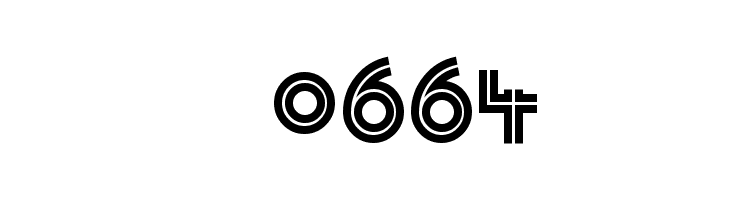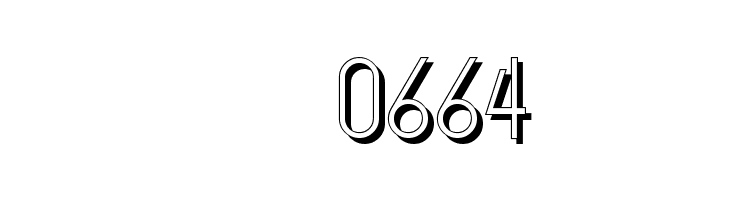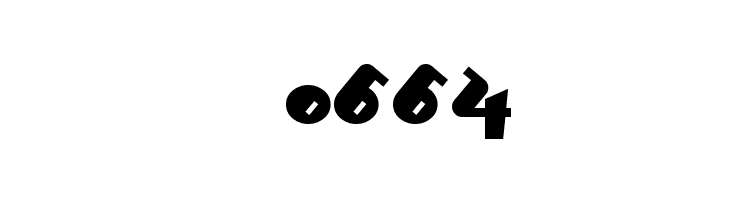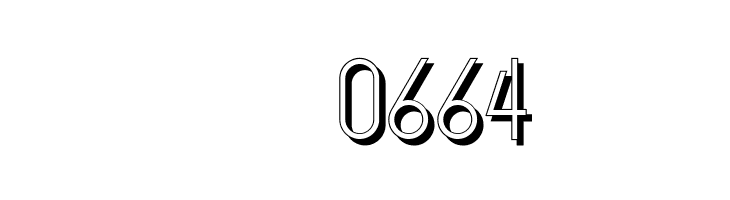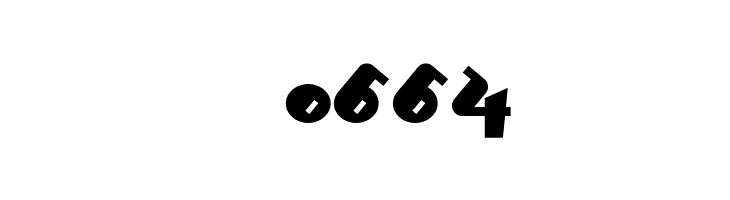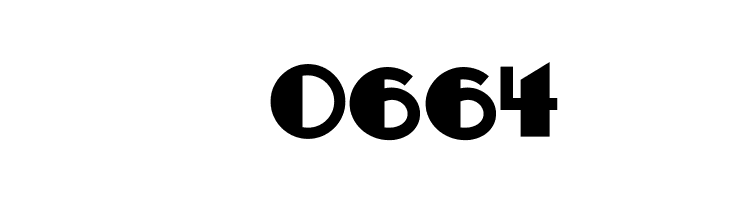
An ornate and decorative font with intricate patterns, perfect for vintage-themed designs.
A decorative and eclectic font with intricate patterns and vintage flair.
A modern serif font with artistic flair and balanced elegance.
A playful, snow-themed decorative font with bold, chunky characters.
A flowing, cursive font with elegant loops and a handwritten style.
A flowing, cursive script font with elegant, connected letters and dynamic contrast.
A graceful and elegant script font with flowing, cursive letterforms.
A bold, geometric font with playful, rounded characters and high contrast.
A bold, geometric font with playful and dynamic character shapes.
A bold, distressed font with a vintage, rugged appearance.
An elegant and flowing script font with smooth, cursive letterforms.
Cartoonish, money-themed decorative font with detailed illustrations.
A graceful and elegant script font with fluid, sweeping curves.
A modern, geometric font with a clean and condensed design.
A bold, decorative font with a shadow effect for a three-dimensional look.
A modern, geometric font with tall, narrow characters and uniform stroke width.
A bold, geometric font with a distinctive shadow effect, perfect for modern and creative designs.
A bold, geometric font with Art Deco influences and high contrast.
A bold, angular font with a playful and whimsical style.
A bold, geometric font with playful and artistic elements.
A bold, geometric font with Art Deco influences and decorative elements.
A bold, geometric font with playful and angular design elements.
A playful, handwritten font with a whimsical and friendly style.
A whimsical decorative font featuring monkeys and architectural silhouettes.
A playful, decorative font with whimsical monkey elements in each character.
A sophisticated script font with flowing, interconnected letters and a handwritten feel.
A monospaced font with bold, circular backgrounds for uppercase letters and a mix of weights.
A bold, modern sans-serif font with clean lines and excellent legibility.
A bold, italicized font with a dynamic and assertive style.
A sleek, modern italic font with clean lines and smooth curves.
A clean, modern font with a minimalist design and consistent stroke width.
A sleek, semi-bold italic font with a modern and dynamic style.
A sleek, minimalist font with thin, uniform strokes and balanced spacing.
A sleek, thin, and italic font with a modern and elegant design.